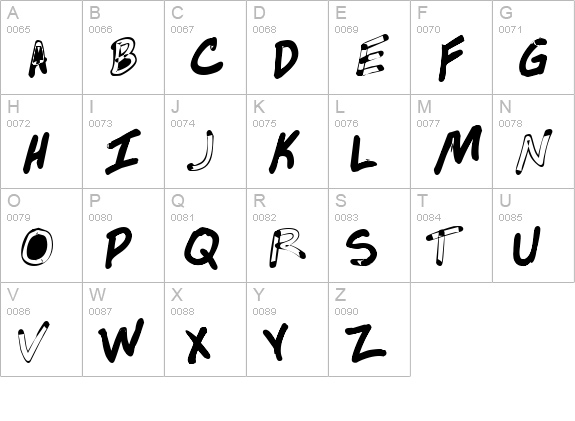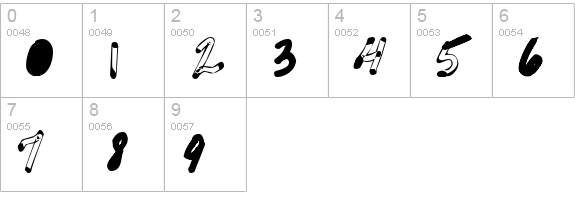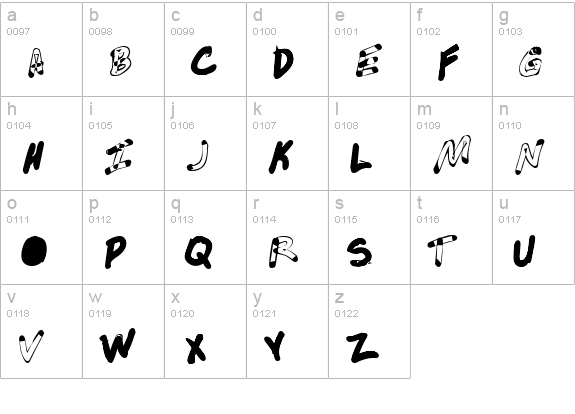
NotsoSkimpus Font Details
Introducing NotsoSkimpus font - a whimsical and playful typeface that exudes charm and creativity. With its quirky design and unique character shapes, NotsoSkimpus is perfect for adding a touch of fun to your projects. This versatile font can be used for various purposes, from branding and packaging to invitations and social media graphics. NotsoSkimpus font is freely available for download at FontsMarket.com, making it accessible to all designers and creatives looking to add a touch of whimsy to their work. Whether you're designing a quirky logo or crafting a playful poster, NotsoSkimpus font is sure to make your designs stand out. Don't miss out on the opportunity to add this delightful font to your collection. Download NotsoSkimpus font today and let your creativity shine!